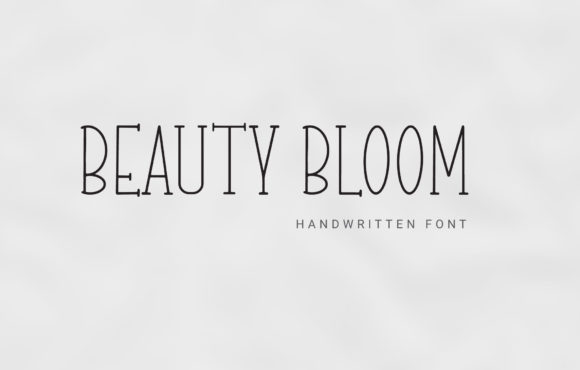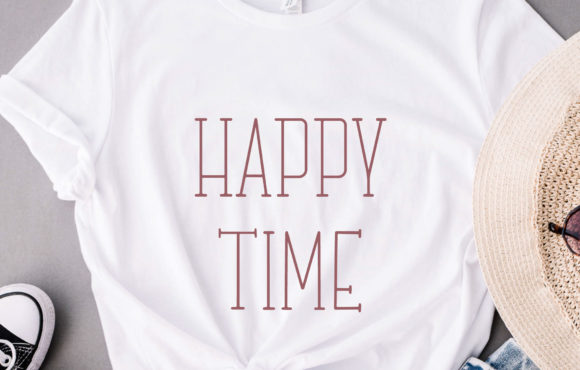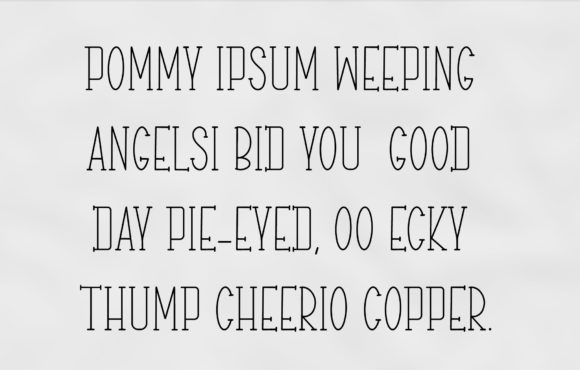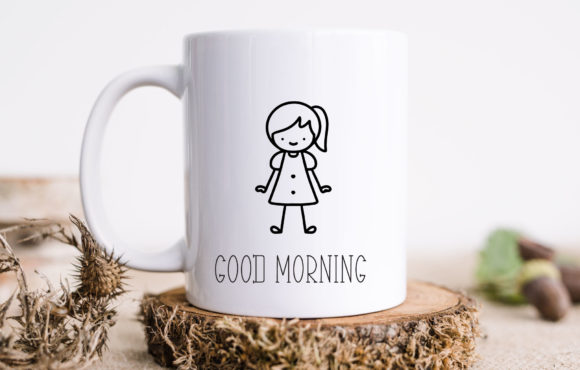
Beauty Bloom Font
About Beauty Bloom Font
Beauty Bloom is a sweet and vintage handwritten font. Clean and a little bit quirky, this font is the perfect fit for all of your logos, branding, social media, and crafty DIY projects.